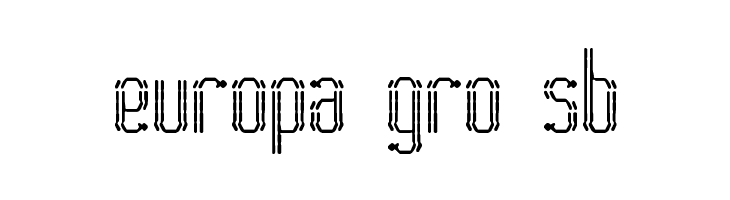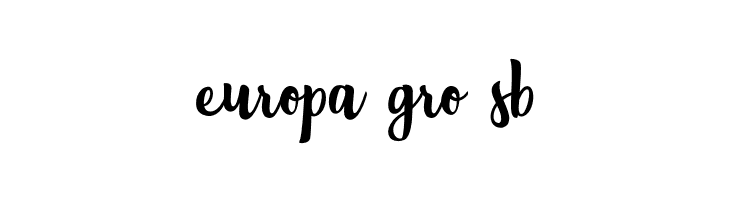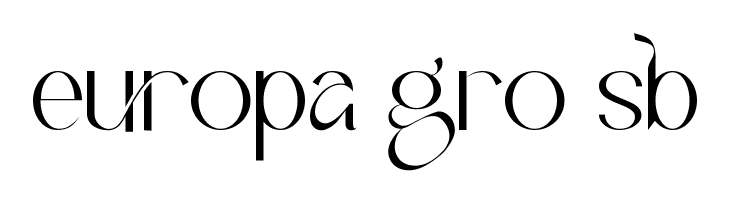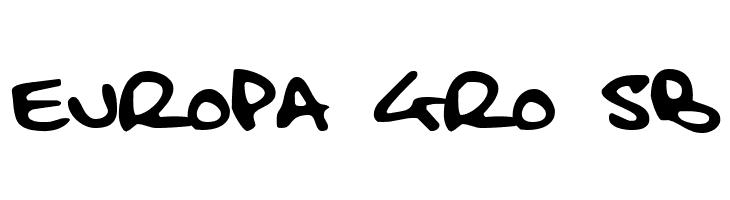
Monospaced dot matrix font with a bold, digital display style.
A playful, handwritten font with tall, narrow letters and a quirky style.
A playful, hand-drawn outlined font with a quirky, cartoonish style.
A geometric, angular font with a modern and futuristic style.
A dot-matrix style font with a modern, digital aesthetic.
A bold, expressive font with a handcrafted, artistic flair.
A bold, rounded geometric font with a modern and friendly style.
An elegant, high-contrast serif font with decorative swashes and refined curves.
A bold, gothic-inspired font with high contrast and intricate details.
A futuristic, segmented font with a digital and angular design.
A playful, hand-drawn font with a cartoonish and whimsical style.
A bold, dynamic brush-style font with sharp angles and thick strokes.
A decorative font with swirling, vine-like extensions and high contrast, ideal for fantasy themes.
An intricate, chaotic font with overlapping loops and lines, ideal for creative projects.
A bold, distressed font with a rugged, vintage appearance.
A playful, hand-drawn font with bold outlines and a whimsical style.
A bold, dynamic script font with a hand-painted, expressive style.
A bold, jagged font with a heavy metal aesthetic and high contrast.
A bold, rugged font with a hand-drawn, textured appearance.
A gothic, medieval-style font with ornate, sharp serifs and decorative flourishes.
A bold, elegant script font with flowing curves and ornate details.
A playful handwritten font with rounded, consistent strokes and a casual feel.
A pixelated, retro-style font with a bold, digital appearance.
A bold, geometric sans-serif font with a modern, industrial feel.
An ornate, vine-like decorative font with intricate, swirling designs.
A bold, shadowed font with an organic, textured appearance.
A bold, distressed font with a vintage, textured appearance.
A bold, flowing script font with playful curves and dynamic strokes.
A bold, geometric font with characters enclosed in square outlines, offering a modern and structured look.